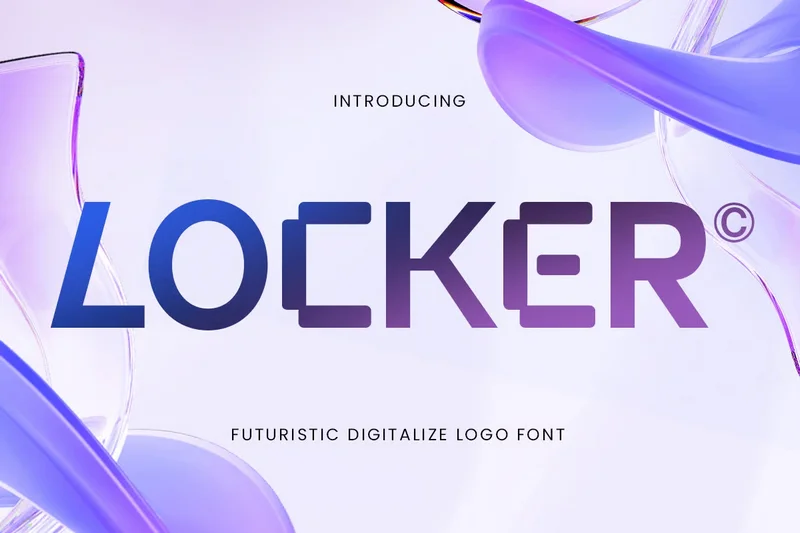
Locker – Futuristic Digitalize Logo Font
LOCKER is a futuristic digital logo font designed to bring a high-tech, modern feel to your branding and digital design projects. With its sleek, geometric letterforms, LOCKER is ideal for tech brands, digital platforms, and any project that requires a futuristic aesthetic.
Perfect for creating memorable logos, digital branding, and sci-fi inspired designs, LOCKER offers a bold and innovative style that captures the essence of technology and modernity. Whether you’re working on a tech startup, gaming logo, or futuristic campaign, LOCKER ensures your design stands out with clarity and impact.
LOCKER – Futuristic Digital Logo Font Features
Geometric, sleek letterforms with a digital, futuristic design
Ideal for tech logos, digital branding, and sci-fi projects
Includes uppercase, lowercase, numerals, and punctuation
Cutting-edge, modern design perfect for digital projects
OpenType features for advanced typographic flexibility